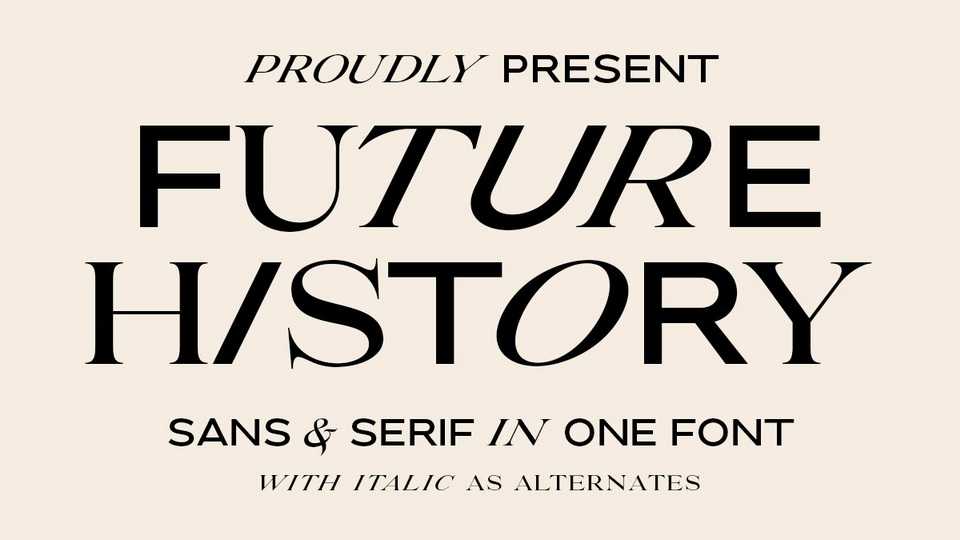
Download Future History font, a modern and stylish typeface that combined sans and serif in one. With Future History font, you can use the lowercase and uppercase in the same word that will make your text more stand out!